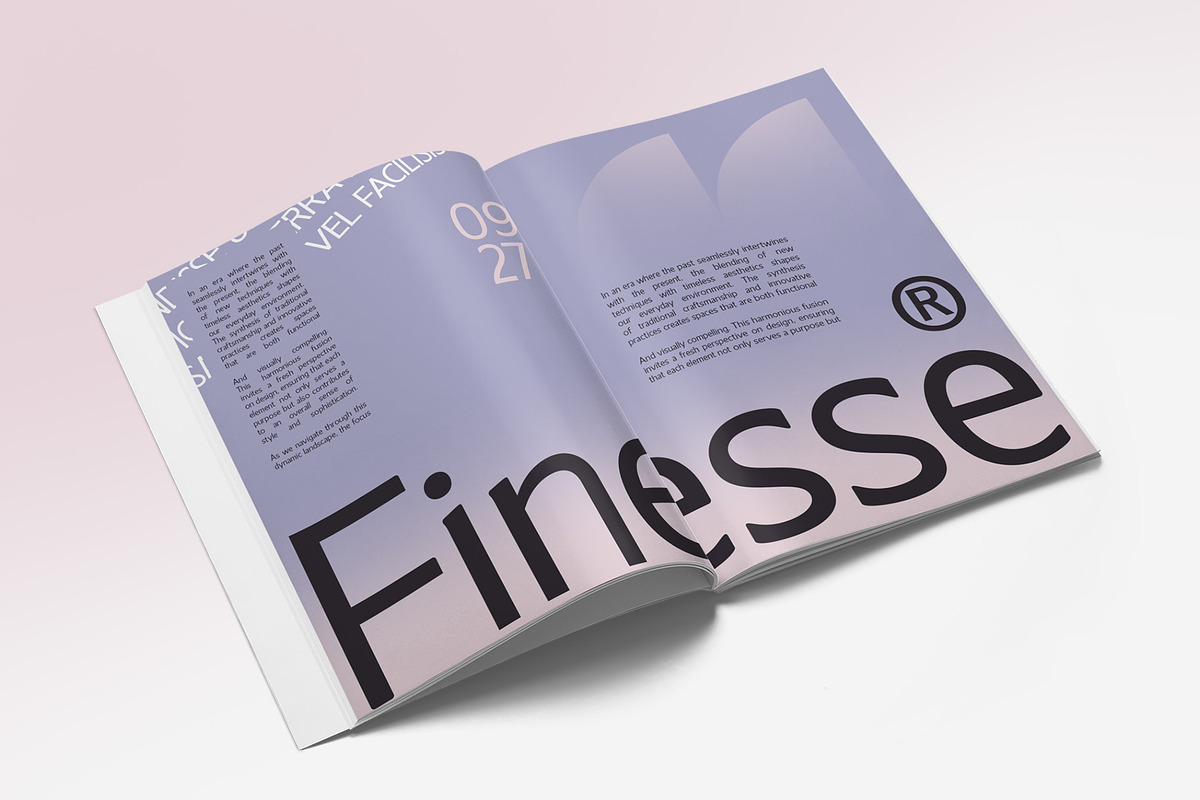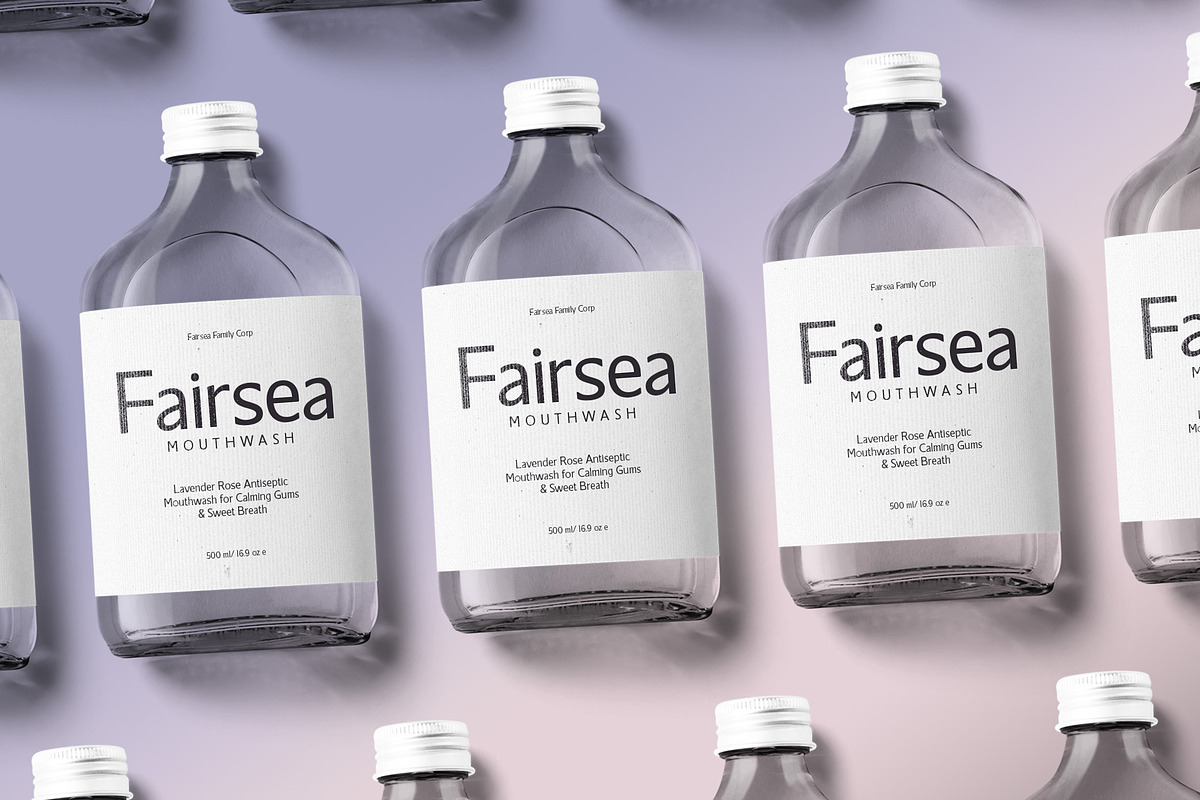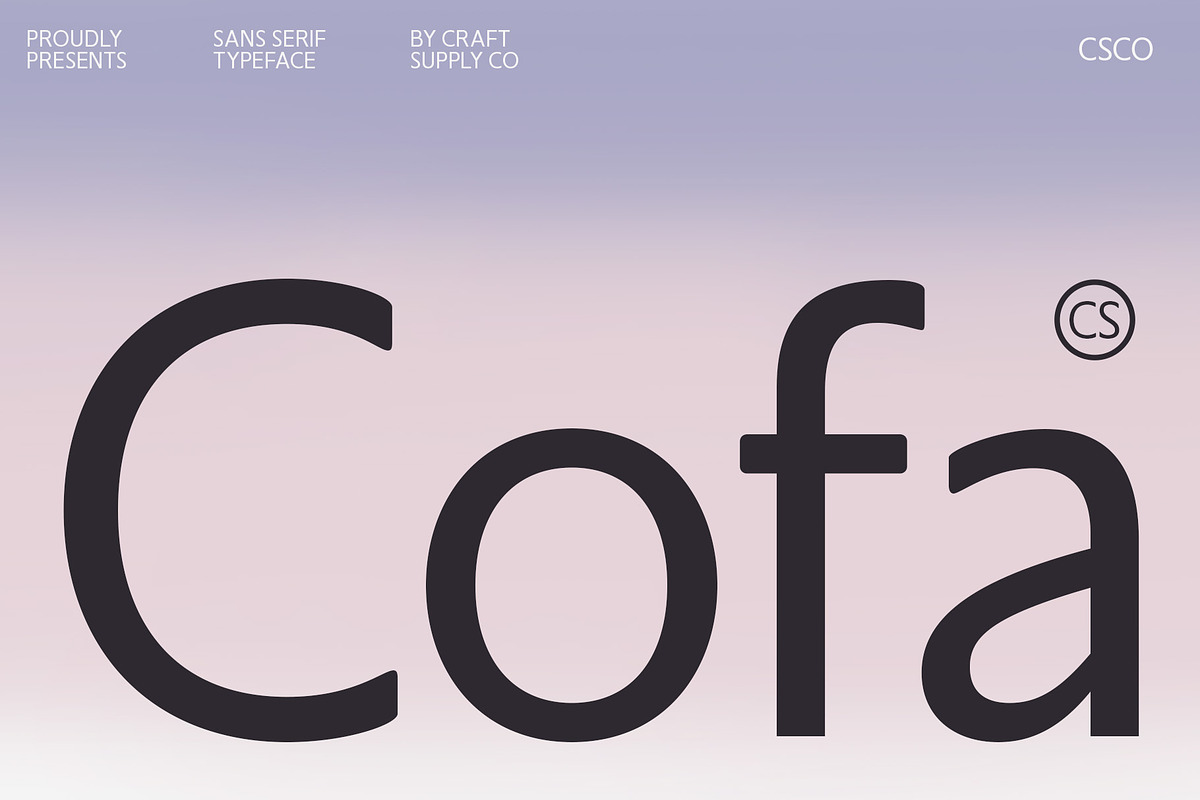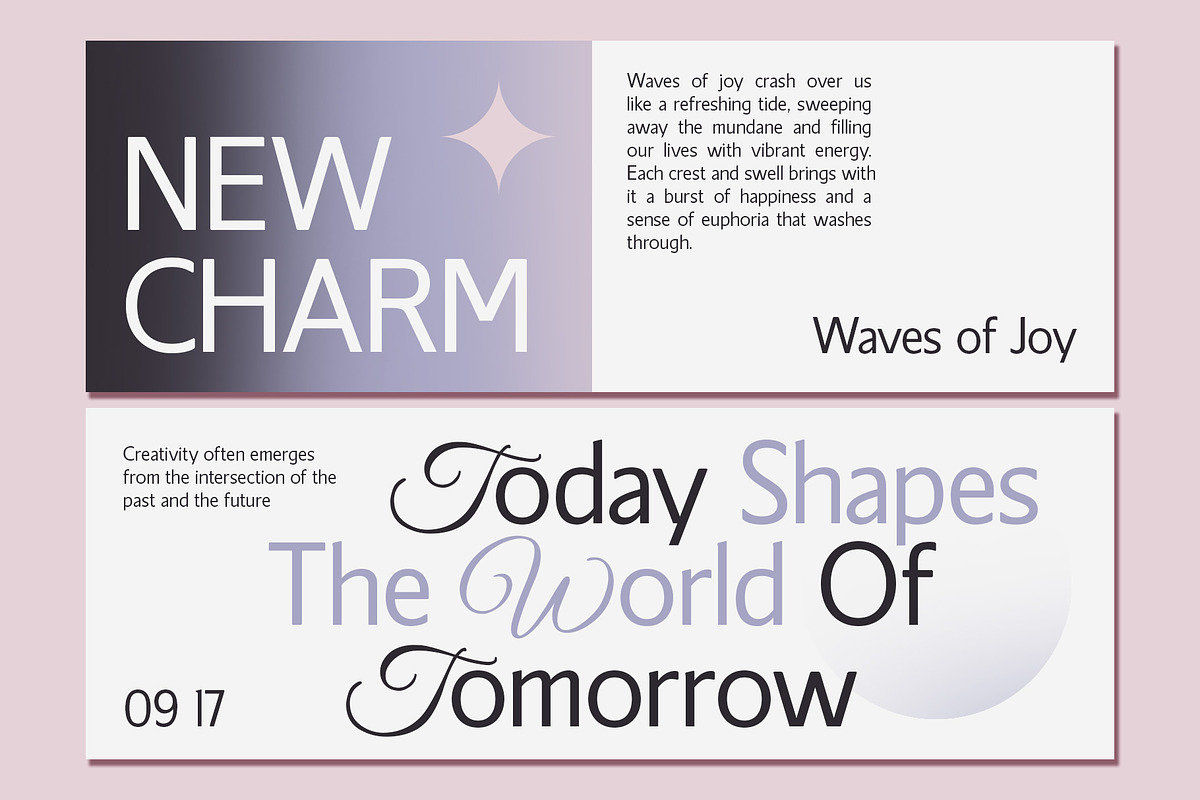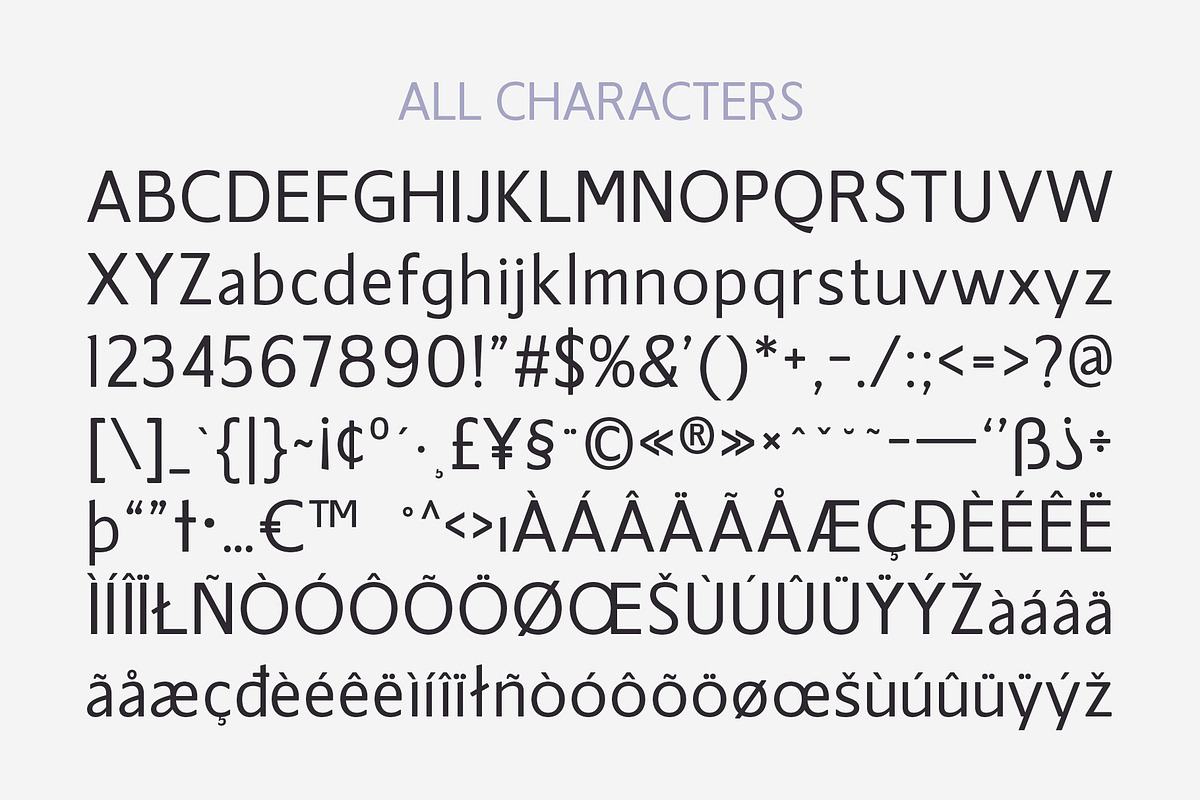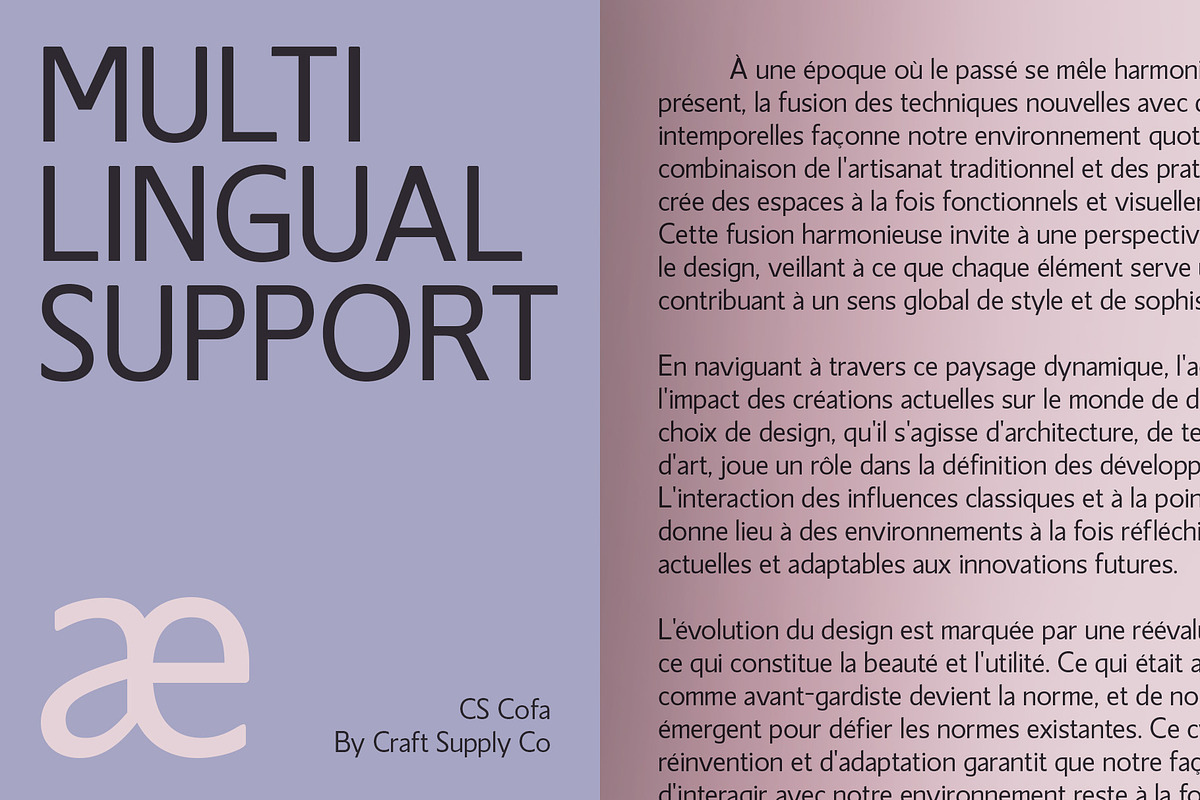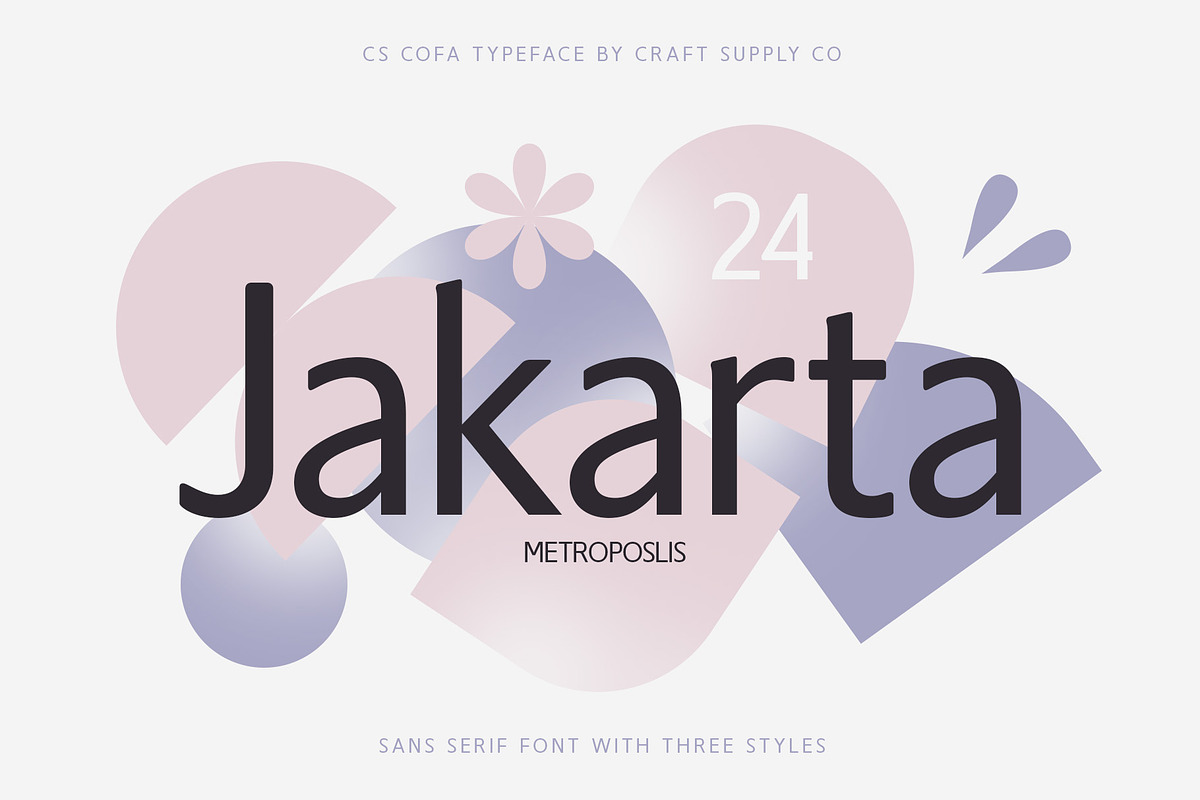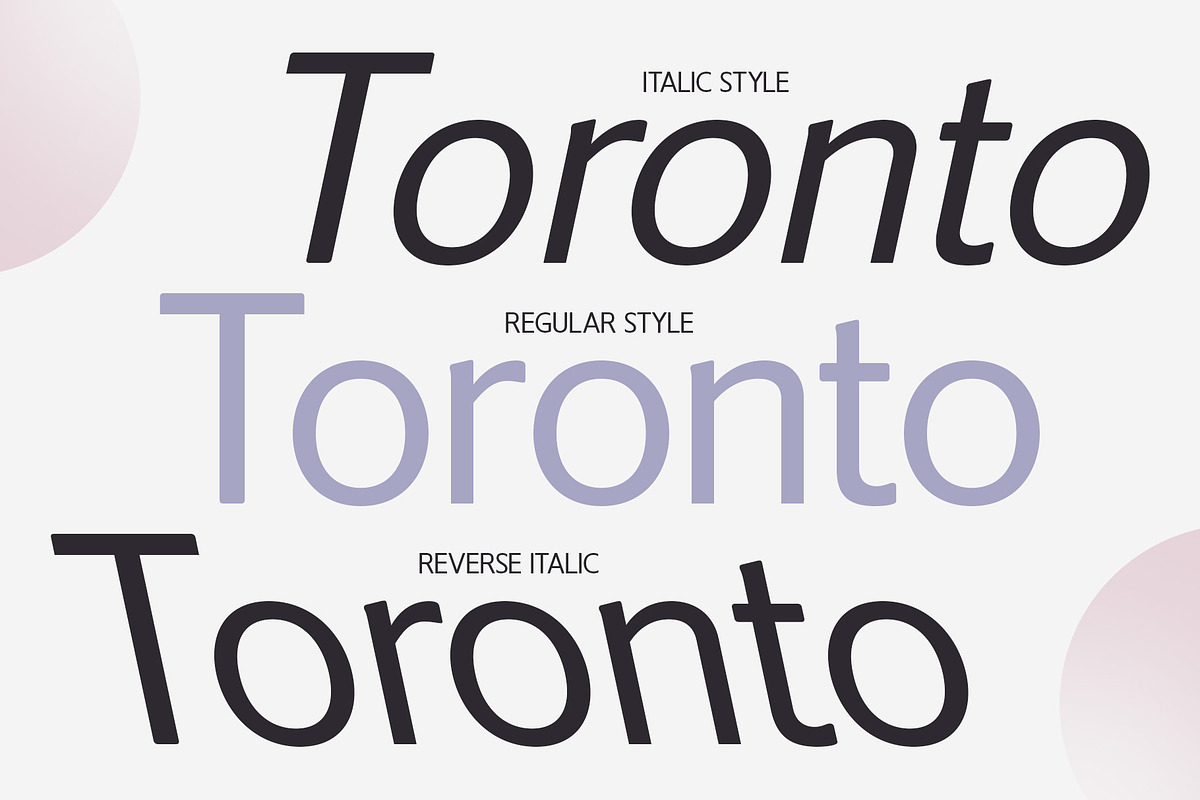
CS Cofa – Modern Font
CS Cofa – A Modern Font for Contemporary Designs
Minimalistic and Clean Design CS Cofa is a modern sans serif font characterized by its minimalistic and clean design, exuding professionalism and elegance. With its simple lines and lack of ornamentation, this font enhances readability, making it an ideal choice for a wide range of applications. The sleek appearance of CS Cofa ensures that your designs maintain a polished and sophisticated look.
Emphasizing Professionalism and Clarity Designed for versatility, CS Cofa shines in various design applications, including branding, presentations, and marketing materials. Its straightforward style emphasizes professionalism and clarity, allowing your message to take center stage. The font’s unobtrusive nature ensures that it complements other design elements, creating a harmonious balance that keeps the focus on the content.
Seamless Integration with Design Elements One of the standout features of CS Cofa is its ability to seamlessly integrate with diverse design styles. Whether you’re creating digital content, print materials, or corporate branding, this font adapts effortlessly, ensuring a cohesive look across all platforms. Its simplicity not only enhances the visual appeal but also allows for effective communication, making it an essential tool for designers.